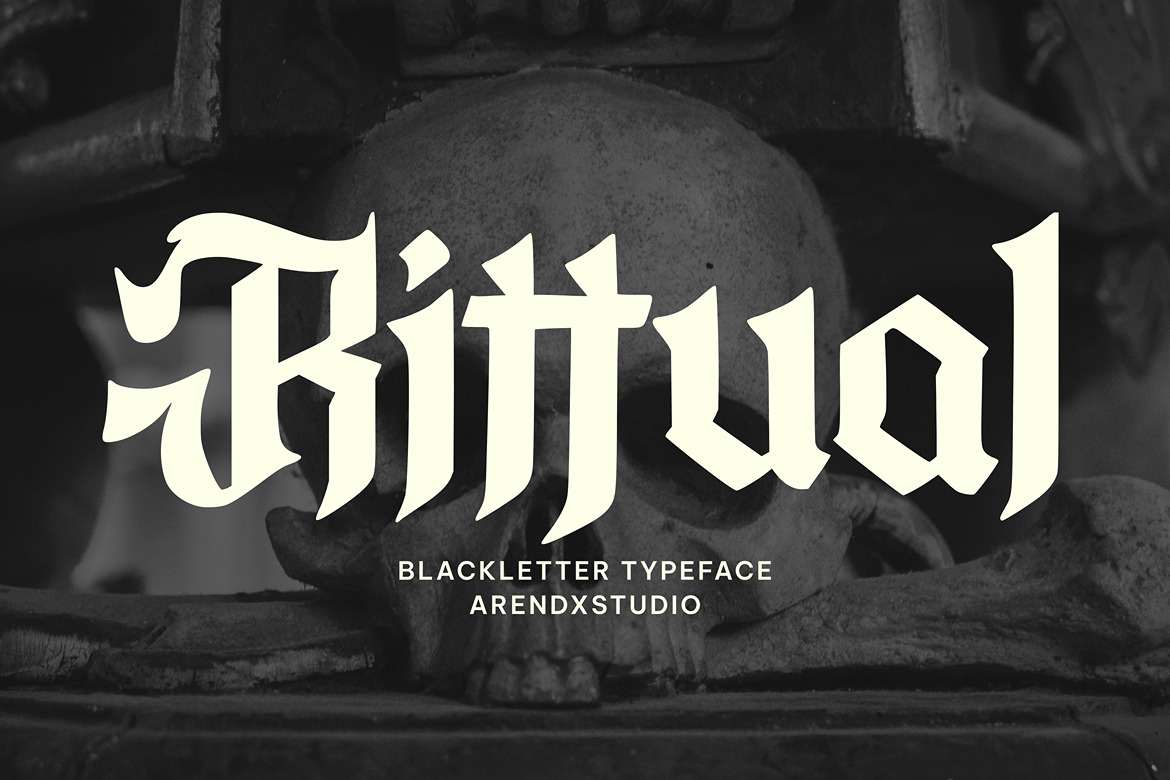
Rittual - Blackletter Typeface
Unleash the ancient power and dramatic allure of typography with Rittual, a commanding blackletter font designed to make an unforgettable statement. Crafted by Arendxstudio, this typeface is a bold revival of classic Gothic script, meticulously refined for the demands of modern design. Ritual transcends mere letters; it's a visual incantation, perfect for projects requiring a sense of history, gravity, and powerful mystique.
The font's heavy, chiseled strokes and dramatic, pointed serifs lend an air of authenticity and timeless strength. Its structure embodies the intricate, ornate artistry of traditional blackletter, yet with a clean, contemporary execution that ensures readability and impact. Whether you are designing powerful packaging, creating intense album art, branding a sophisticated distillery, or crafting compelling promotional material for events with a dark or dramatic theme, Ritual provides the perfect foundation.
Ritual is more than a display font; it's a mood-setter. It invokes the spirit of medieval manuscripts, ancient secrets, and enduring tradition. The typeface delivers a formidable presence that commands attention and imbues your text with authority and depth. Use Ritual to elevate your design work and give your message the gravitas and dark elegance it deserves.
Features : Uppercase and lowercase characters